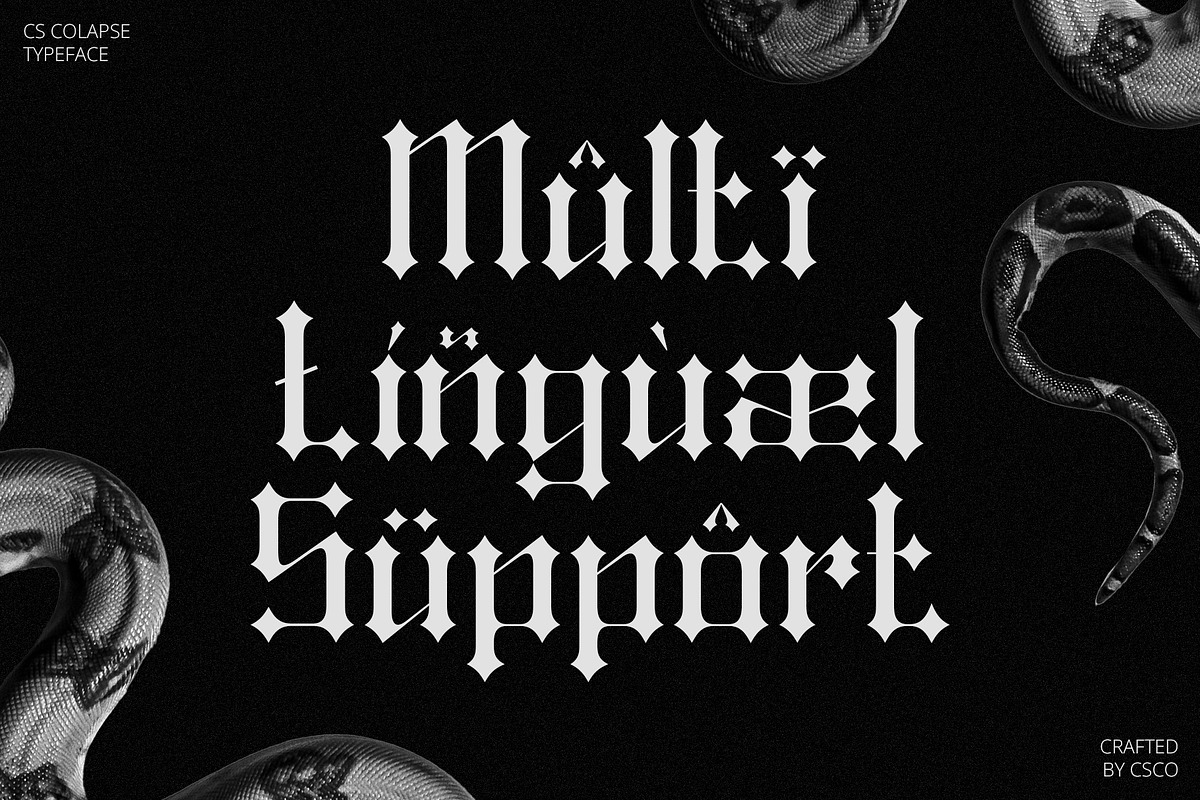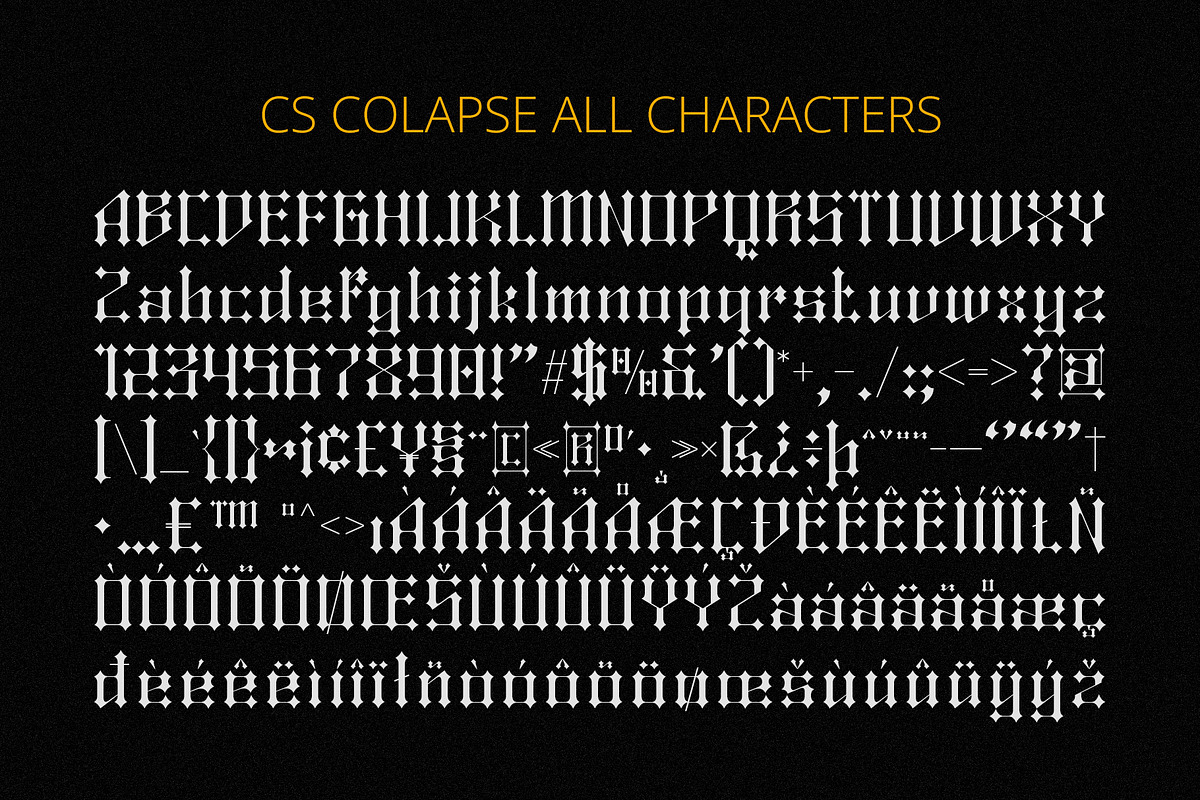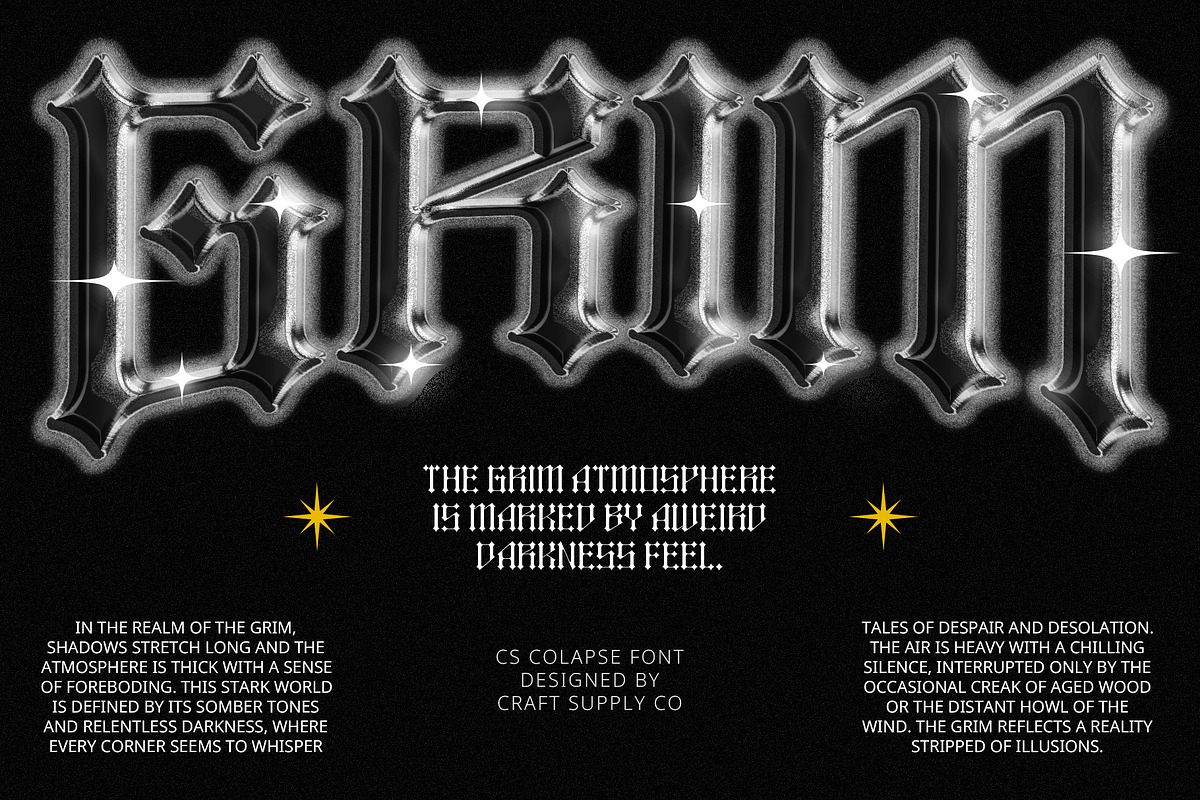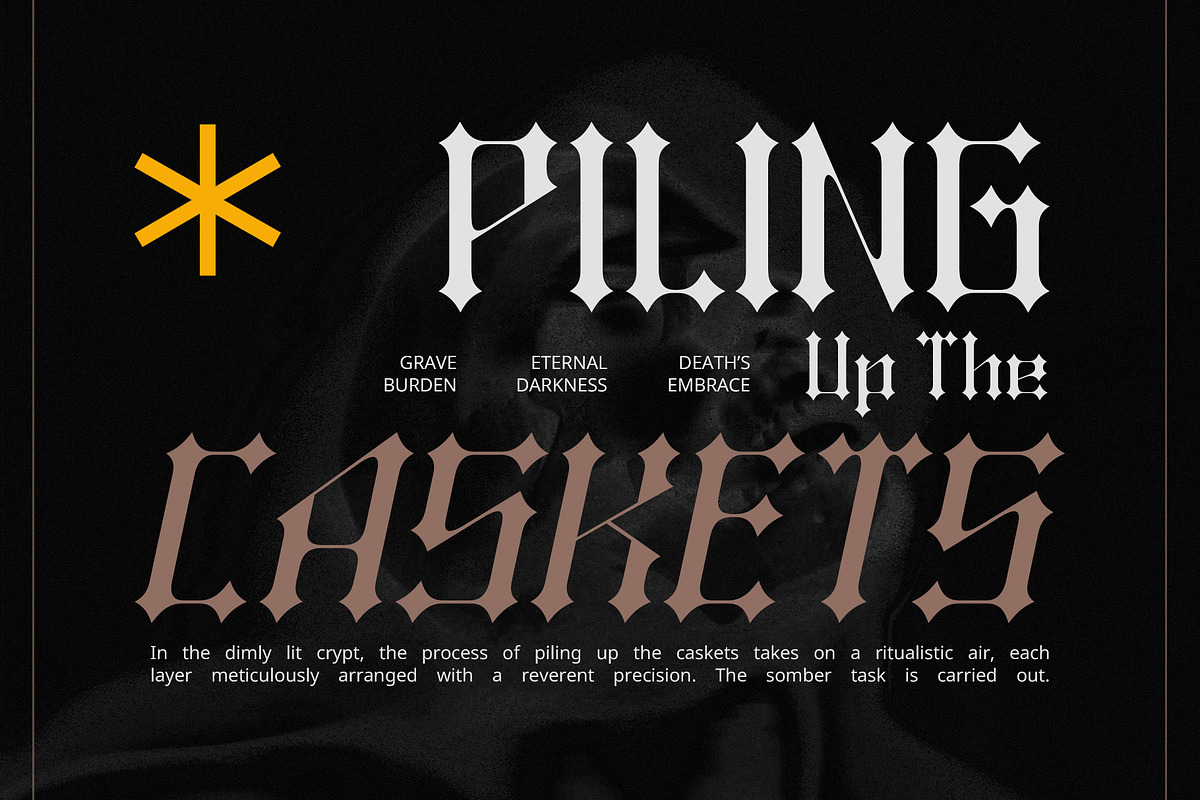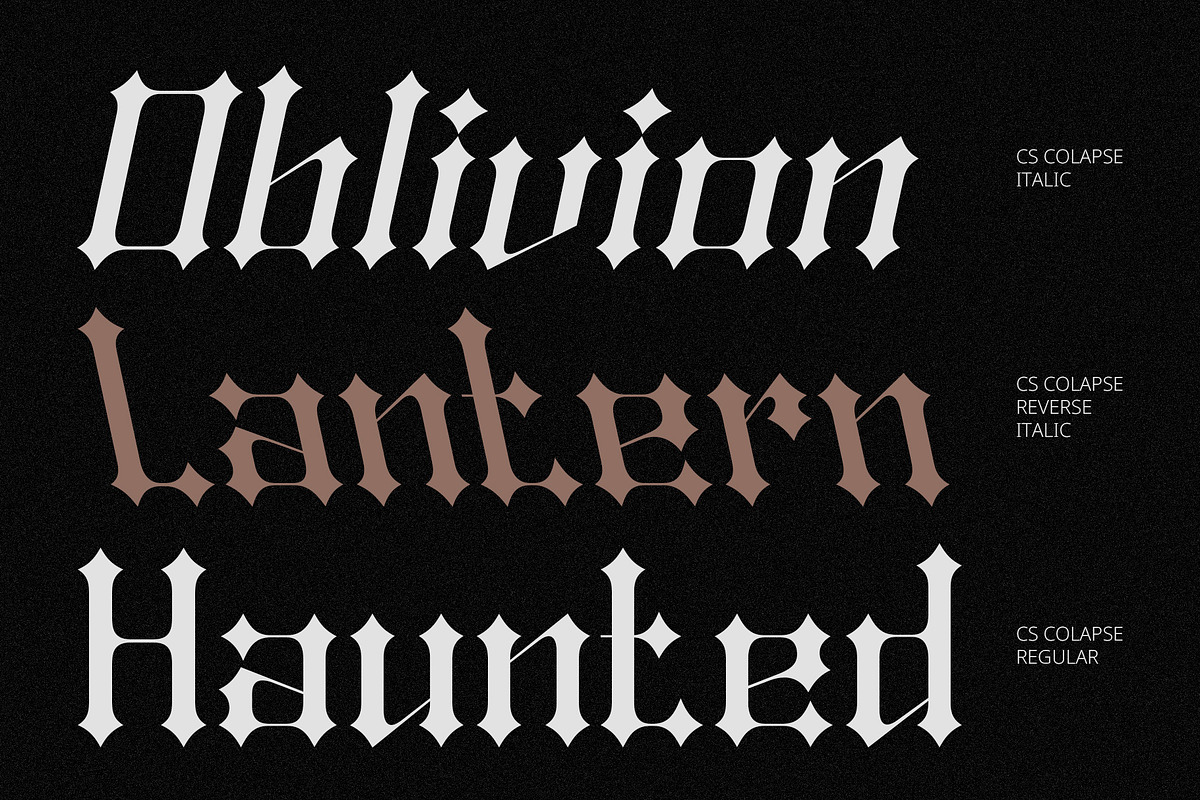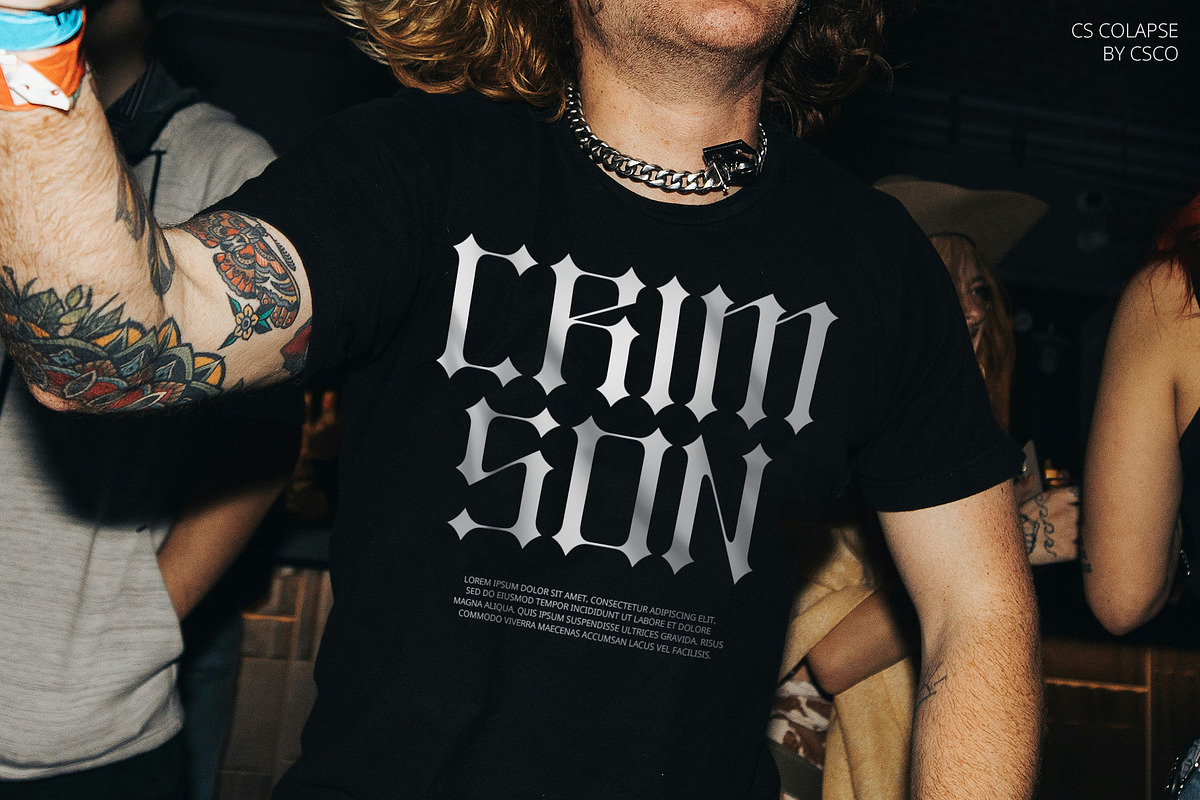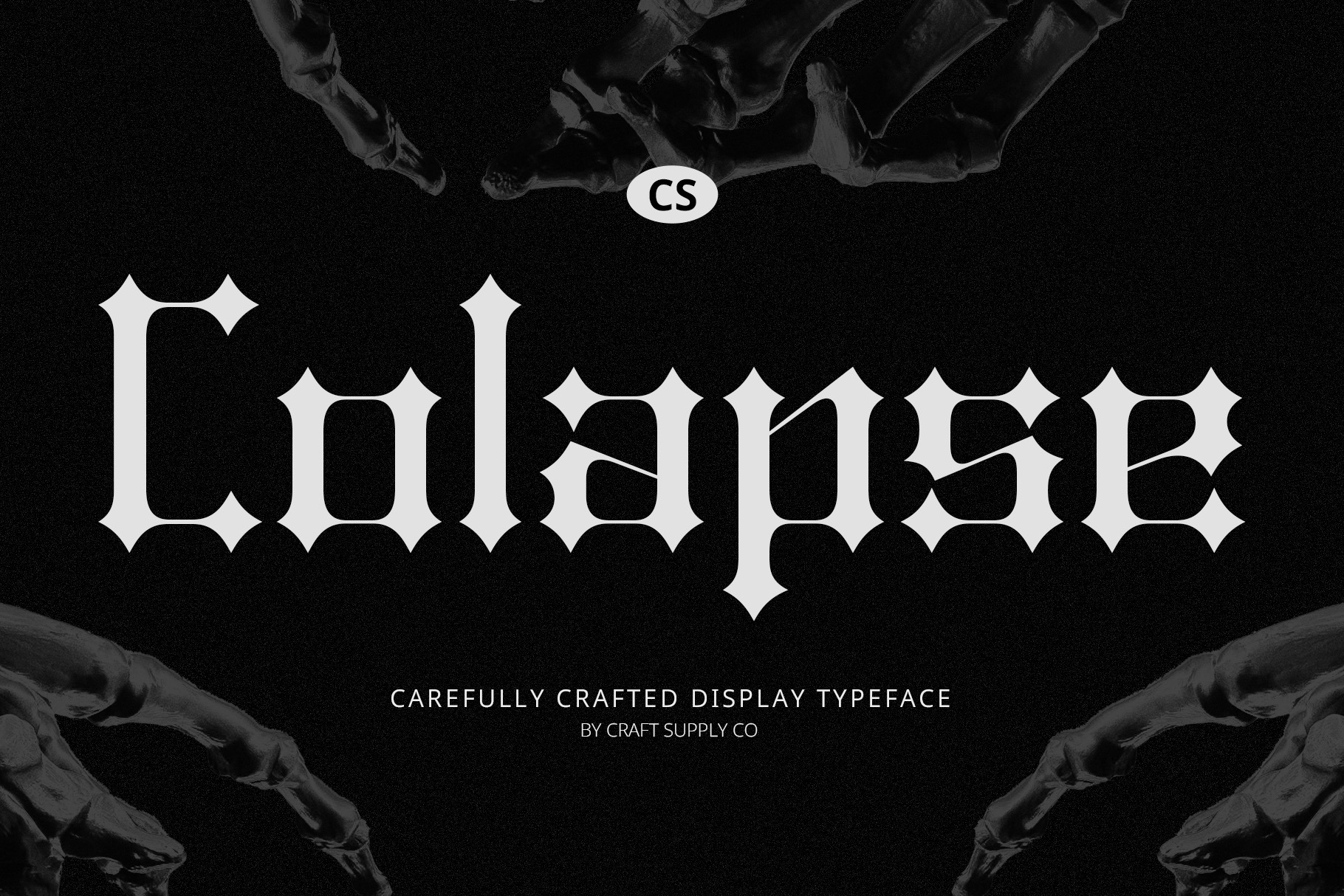
CS Colapse – Gothic Font
CS Colapse – Gothic Font: Edgy Gothic Design with a Rock Metal Flair
Gothic-Inspired Display Font with Rock Metal Aesthetics CS Colapse is a display font that merges Gothic design with rock metal influences, featuring sharp, angular letterforms and dramatic curves. This combination evokes a sense of edginess and intensity, perfectly capturing the rebellious spirit and raw energy of metal music.
Bold and Dramatic for High-Impact Designs With its bold, stylized appearance, CS Colapse is ideal for high-impact designs such as album covers, concert posters, and band logos. Its striking visual presence and dramatic curves ensure it stands out in any design project that requires a strong, rebellious edge.
Historical Gravitas with a Rebellious Twist The font’s Gothic influence adds a layer of historical gravitas, while its rock metal flair injects a contemporary, rebellious twist. This unique blend makes CS Colapse an excellent choice for projects that demand both a touch of classic elegance and a bold, modern attitude.
Make a Statement with CS Colapse Bring a powerful, striking presence to your designs with CS Colapse. Its edgy Gothic style and rock metal aesthetics ensure your projects have a memorable and impactful visual identity, perfect for capturing attention and making a statement.
- CS Colapse Regular
- CS Colapse Italic
- CS Colapse Reverse Italic